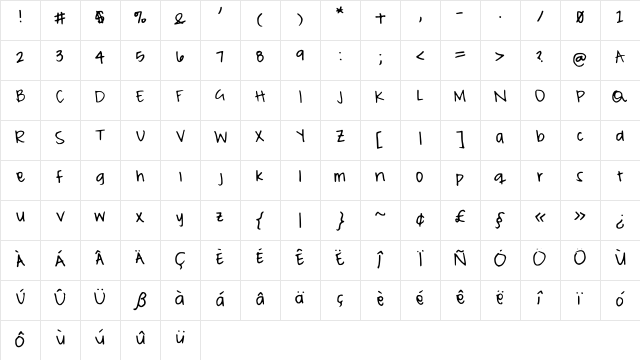
PeaMeaghan Medium Free Font
PeaMeaghan Medium
Complete PeaMeaghan Medium glyph index. Displaying only characters natively supported by PeaMeaghan Medium font.
Design Context for PeaMeaghan
PeaMeaghan is a composed and adaptable typeface that performs quietly and consistently across a wide range of design contexts.
Pro Tip: Use PeaMeaghan in both headline and body roles to test its range before committing to a single application.